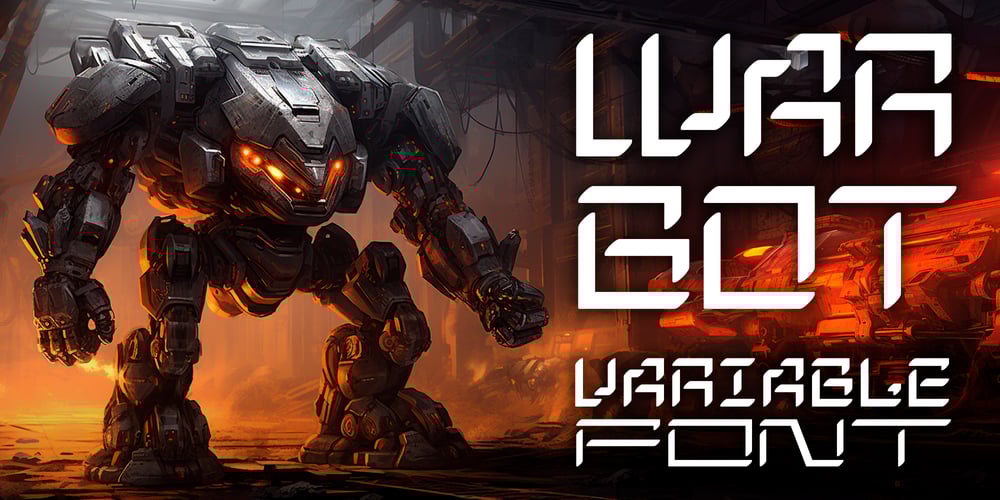
IA War Bot Font Family was designed by Serhii Yarovyi and published by Invisible Art Studio. IA War Bot contains 1 styles and family package options. The appearance of the ‘IA War Bot’ speaks for itself. It is a futuristic stenciled robotic font family that would be suitable for lettering comics, computer games, toy packaging, and the like.Many of the glyphs have alternatives. The widest set of font files, from Thin Ultra Condensed to Black Ultra Expanded, and the expanded character set (including Cyrillic) will satisfy all design needs. And the most demanding can turn their attention to the variable font.